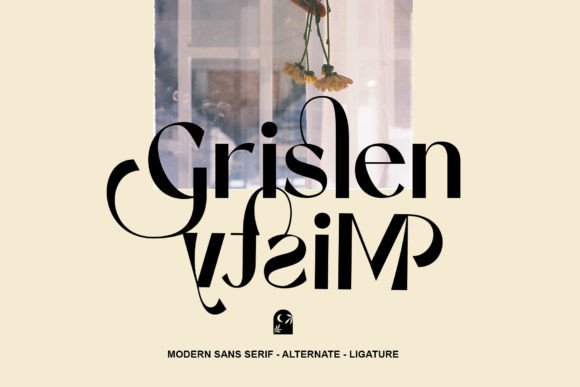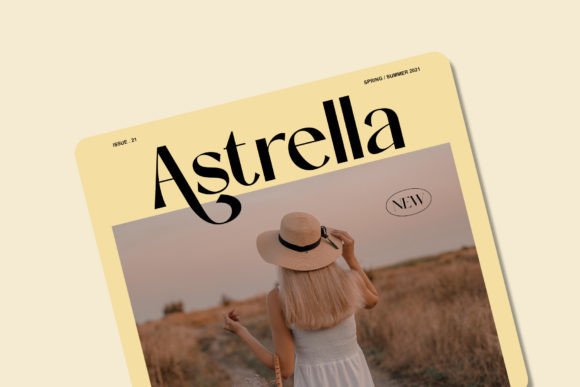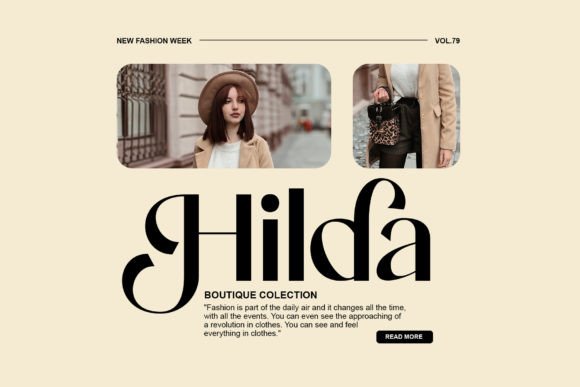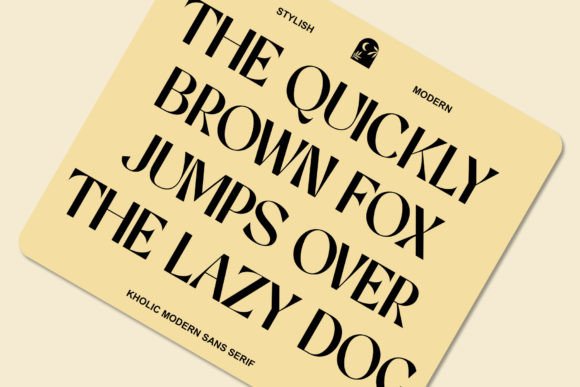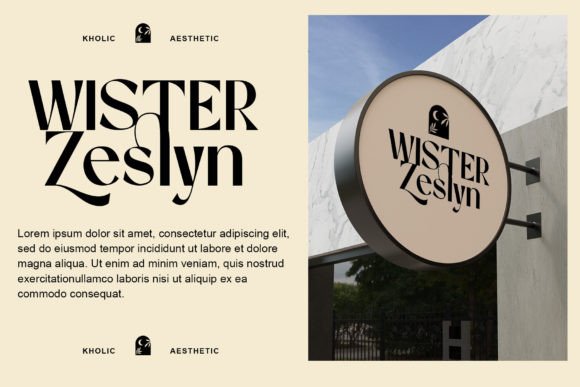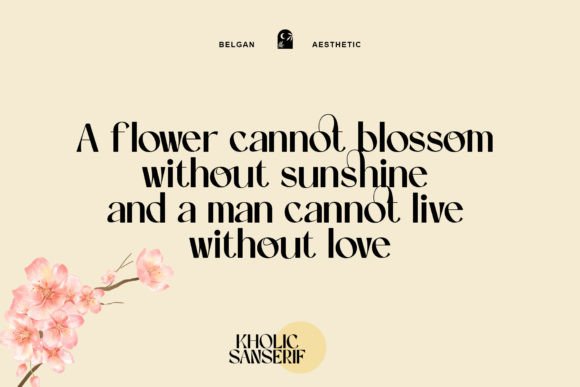
Introduction to Kholic Font
Kholic is a special modern stylistic style font.
Made with accurate accuracy with beautiful curves With alternative characters and ligatures that make your work very special.
Key Features of Kholic Font